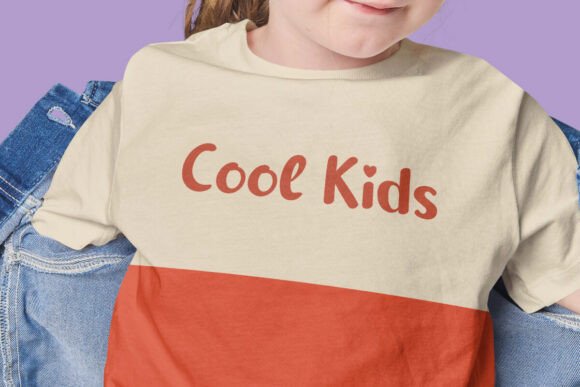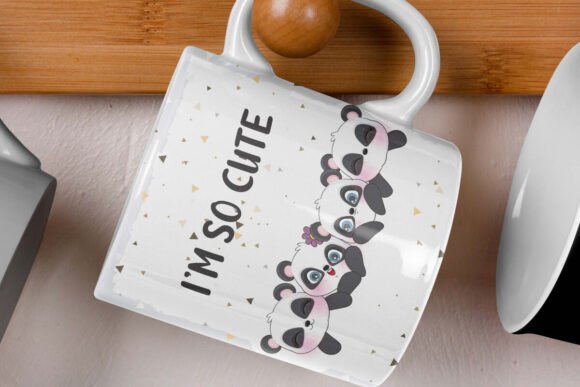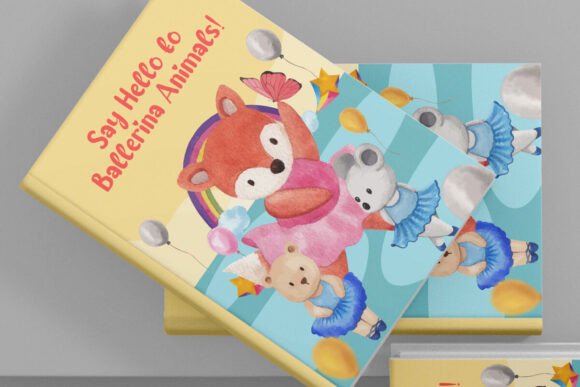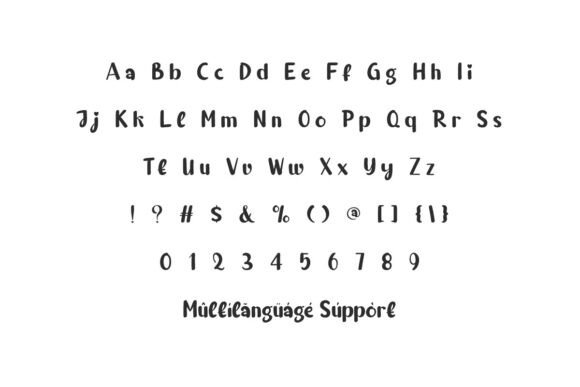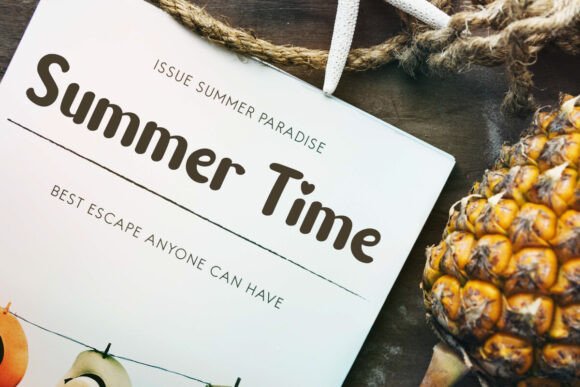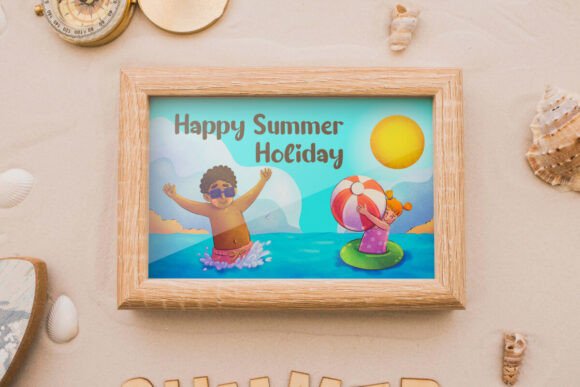
Introducing Healing Bestie Font: The Cute and Lovable Chubby Font for Your Business
Are you looking for a font that can add a touch of warmth and playfulness to your brand? Look no further than Healing Bestie Font, a delightful and charming typeface that’s perfect for businesses that want to stand out from the crowd. This adorable font is designed to bring a smile to your customers’ faces, making it an ideal choice for a wide range of industries, from advertising and bakery to children’s products and clothing brands.
What Makes Healing Bestie Font So Special?
Healing Bestie Font is a unique and captivating font that’s characterized by its chubby and slightly fat letters. Its cute and lovable design makes it perfect for businesses that want to convey a sense of friendliness and approachability. Whether you’re creating a logo, advertisement, or packaging, this font is sure to make your brand feel more interesting and engaging.
Industries That Can Benefit from Healing Bestie Font
Healing Bestie Font is versatile and can be used in a variety of industries, including:
- Advertisement: Add a playful touch to your ads and make them more eye-catching.
- Bakery: Make your bakery’s branding and packaging more appealing with this delightful font.
- Children’s products: Create fun and engaging products for kids, such as toys, books, and educational materials.
- Chocolate brand: Add a touch of sweetness to your branding and packaging.
- Clothing brand: Create a playful and fashionable brand that kids and adults will love.
- Coffee shop: Make your coffee shop’s branding and menu more inviting.
- Craft: Add a personal touch to your handmade products and branding.
- Event organizer: Create fun and engaging event materials, such as invitations and flyers.
- Food or beverage: Make your brand stand out in the food and beverage industry.
- Glassware: Add a touch of elegance and playfulness to your glassware products.
- Graphic design: Use this font in your graphic design projects to add a touch of whimsy.
- Movie: Create engaging movie titles and promotional materials.
- Printing: Use this font in your printing projects, such as business cards and brochures.
- Publishing: Create engaging book titles and covers.
- Restaurant: Make your restaurant’s branding and menu more inviting.
- Retail: Add a playful touch to your retail branding and packaging.
- School: Create fun and engaging educational materials.
- Toy: Create fun and engaging toys and packaging.
- Writer: Use this font in your writing projects, such as ebooks and blog posts.
Why Designers and Crafters Love Healing Bestie Font
Designers and crafters love Healing Bestie Font for its unique and playful design. This font is perfect for creating handmade products, such as crafts, jewelry, and toys. It’s also great for designers who want to add a touch of whimsy to their projects. With Healing Bestie Font, you can create:
- Handmade products, such as cards, invitations, and gift tags.
- Custom jewelry, such as pendants and charms.
- Fun and engaging toys, such as plush toys and puzzles.
- Playful and creative crafts, such as knitted items and decorative boxes.
How to Use Healing Bestie Font
- Use it as a headline font to add a touch of whimsy to your designs.
- Pair it with other fonts to create a unique and playful combination.
- Use it in your branding and packaging to add a touch of personality.
- Experiment with different colors and textures to make your designs more engaging.
Healing Bestie Font is a delightful and charming font that’s perfect for businesses that want to add a touch of warmth and playfulness to their brand. With its unique and playful design, this font is sure to make your brand stand out from the crowd. Whether you’re a designer, crafter, or business owner, Healing Bestie Font is a great choice for any project. So why not give it a try and see how it can add a touch of whimsy to your designs?